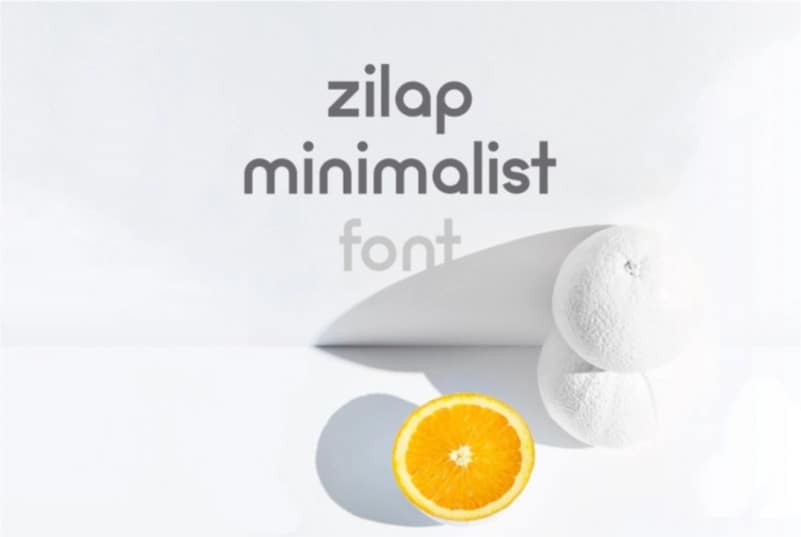
Zilap Minimalist Font
Zilap Minimalist Sans Serif Font is highly legible rounded sans serif font manufactured by Zilap Estudio,which includes only lowercase letters, with an innovative, fresh, and very geometric design. The typeface could be perfect choice for logo / logotype design, branding, marketing graphics, banners, posters, signage, corporate identities as well as for editorial design that can bring freshness and professionalism.